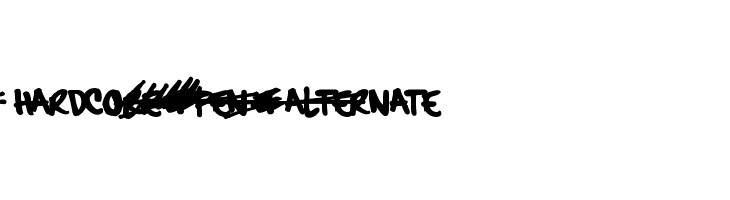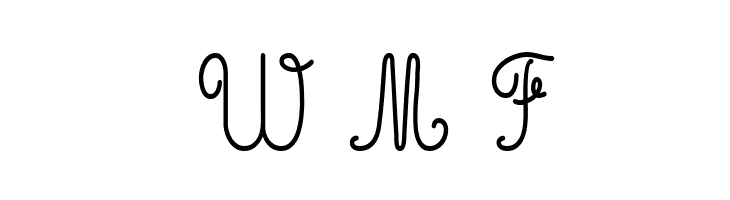
A playful, handwritten font with tall, narrow letters and uniform strokes.
A dynamic handwritten font with fluid strokes and playful elegance.
A bold, handwritten marker-style font with a casual, dynamic look.